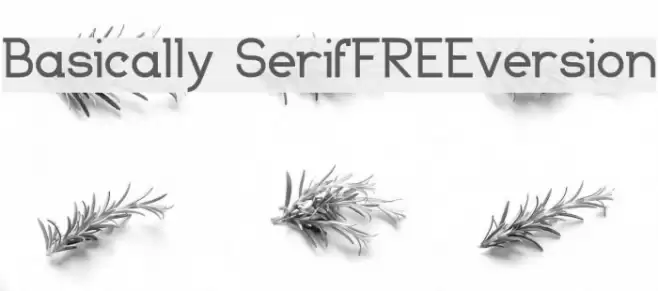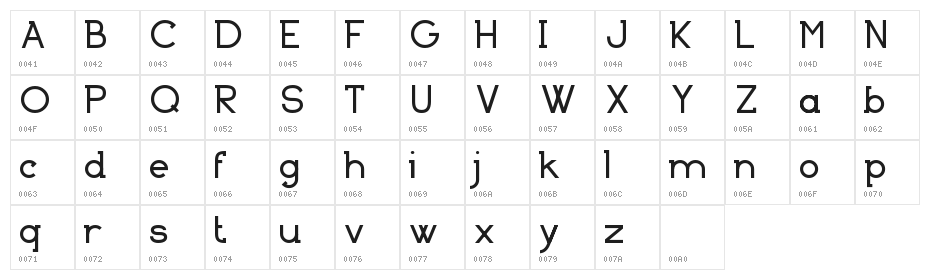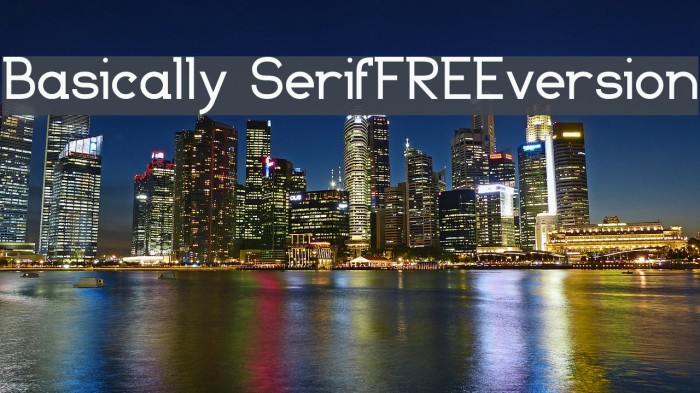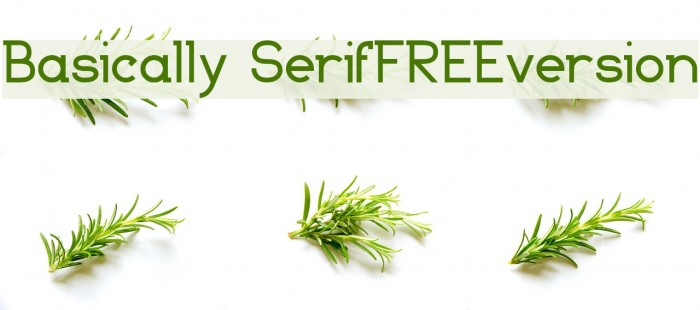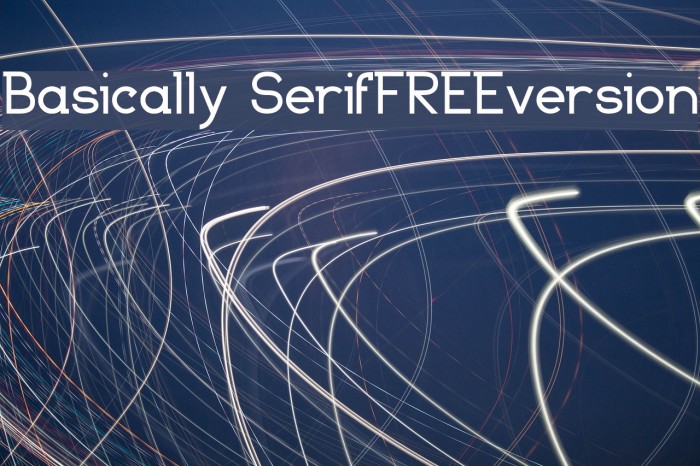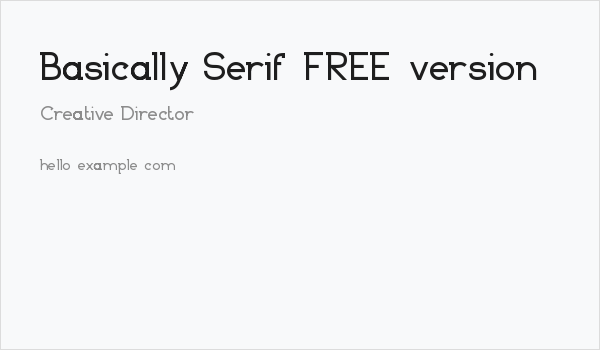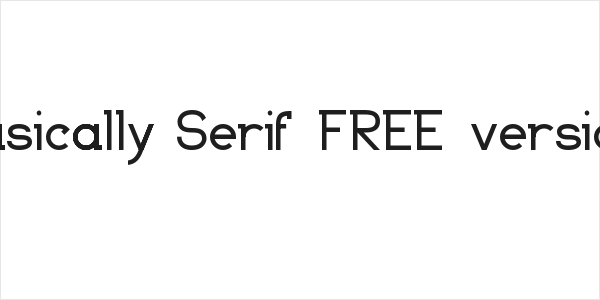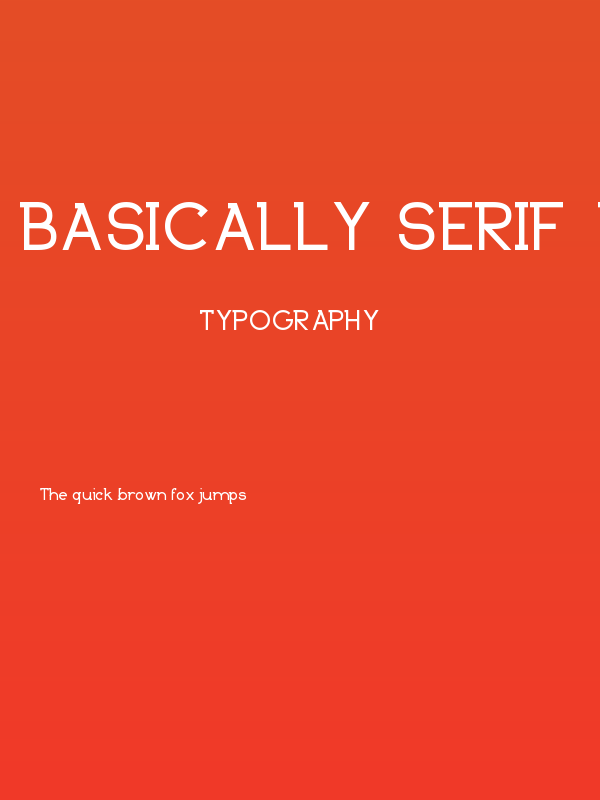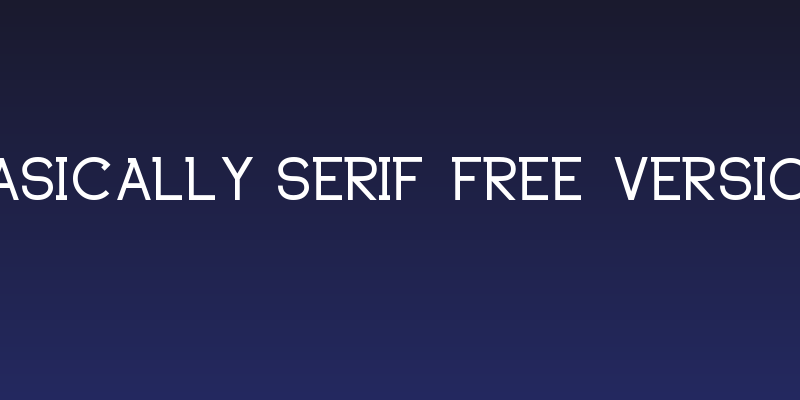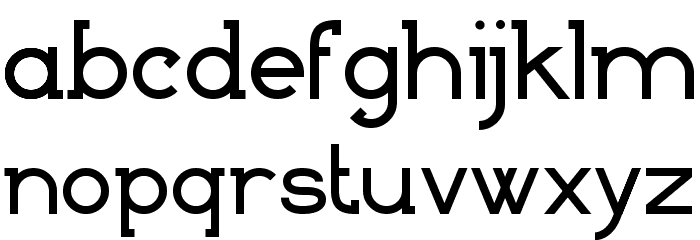
Basically Serif_FREE-version Font
Basically Serif_FREE-version Description
This font exhibits a clean and modern serif style, characterized by its minimalistic approach to traditional serif elements. The uppercase letters are bold and well-defined, with a slight curvature that adds a touch of elegance. The lowercase letters maintain a consistent height, providing a harmonious flow across text. The numerals are clear and straightforward, ensuring readability. Special characters are designed with the same attention to detail, making them blend seamlessly with the rest of the font. Overall, this font balances classic serif features with a contemporary twist, making it versatile for various design needs.
A modern serif font with clean lines and a minimalistic design from Uncategorized fonts.
- Proposed Projects: Ideal for editorial design, branding projects, and digital content where a modern yet classic look is desired.